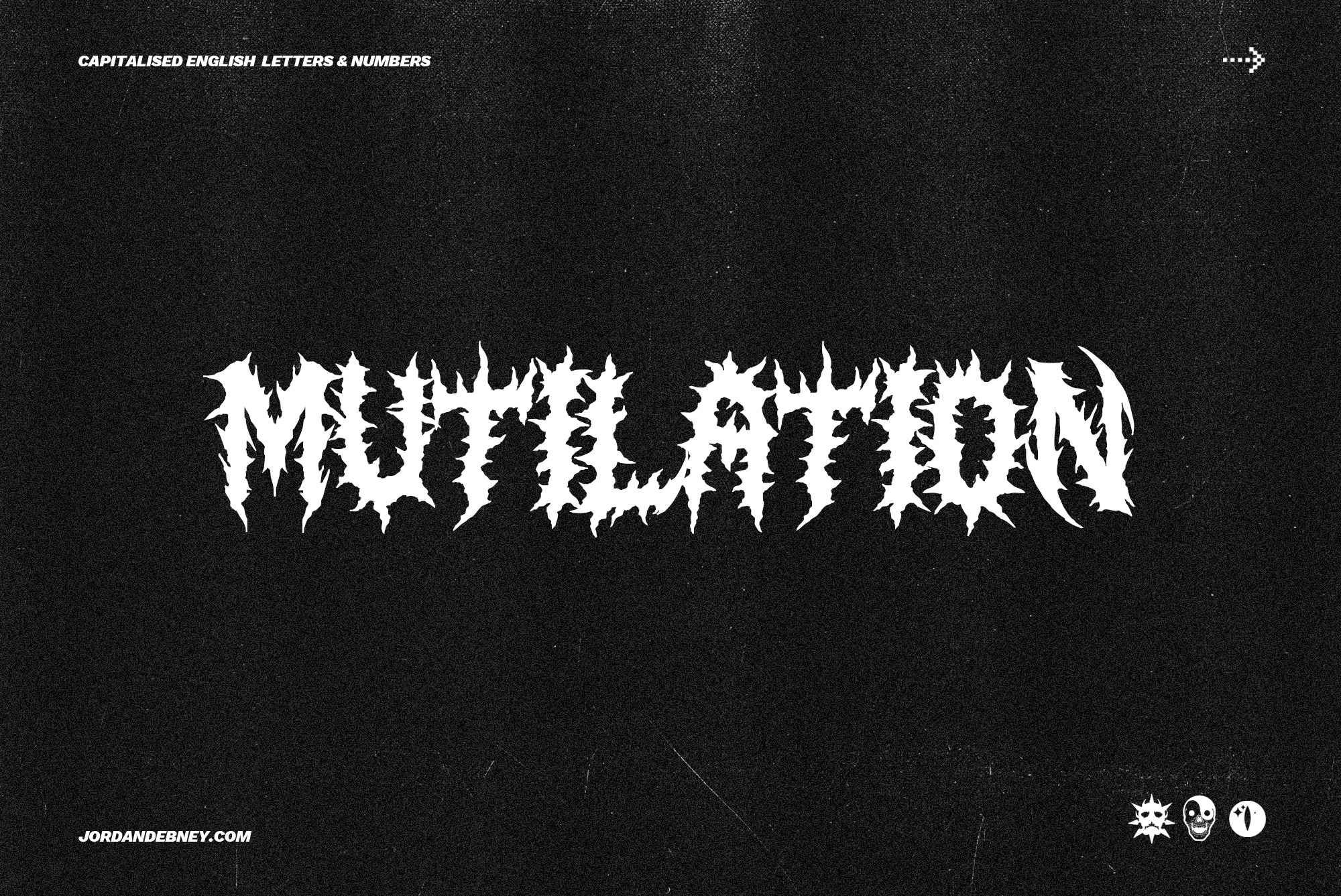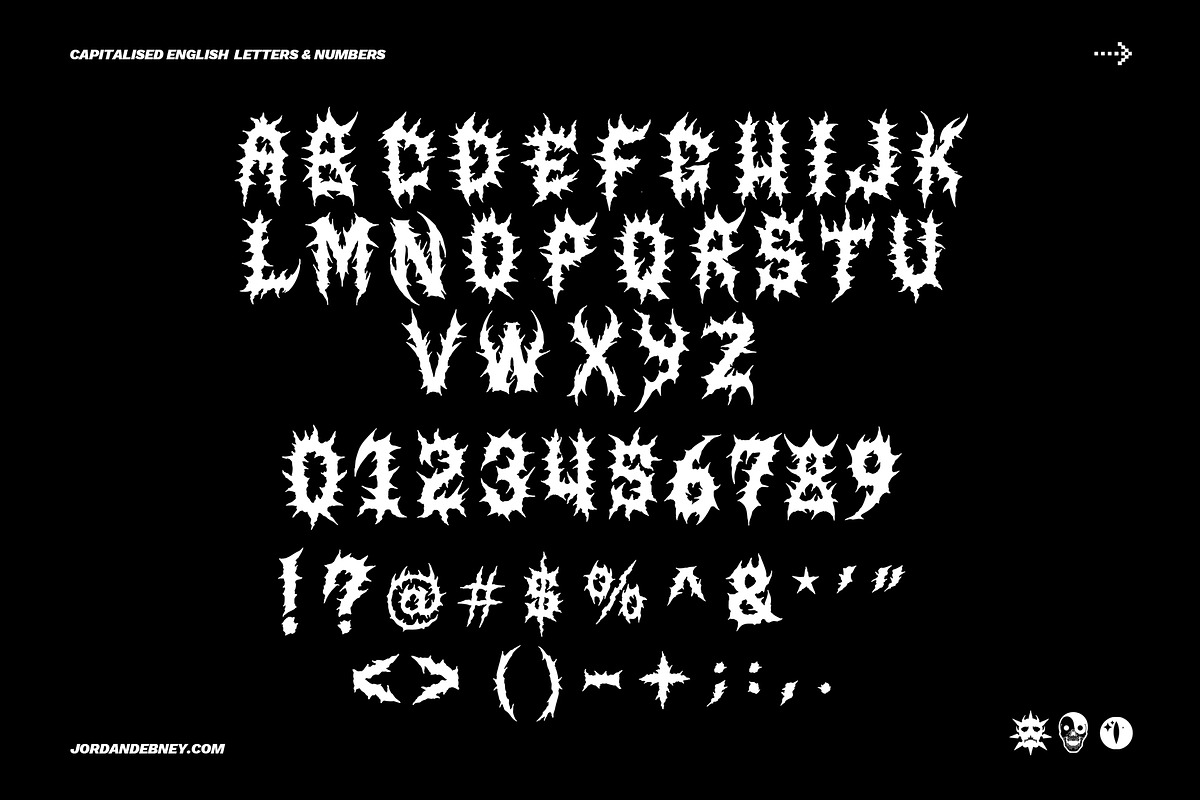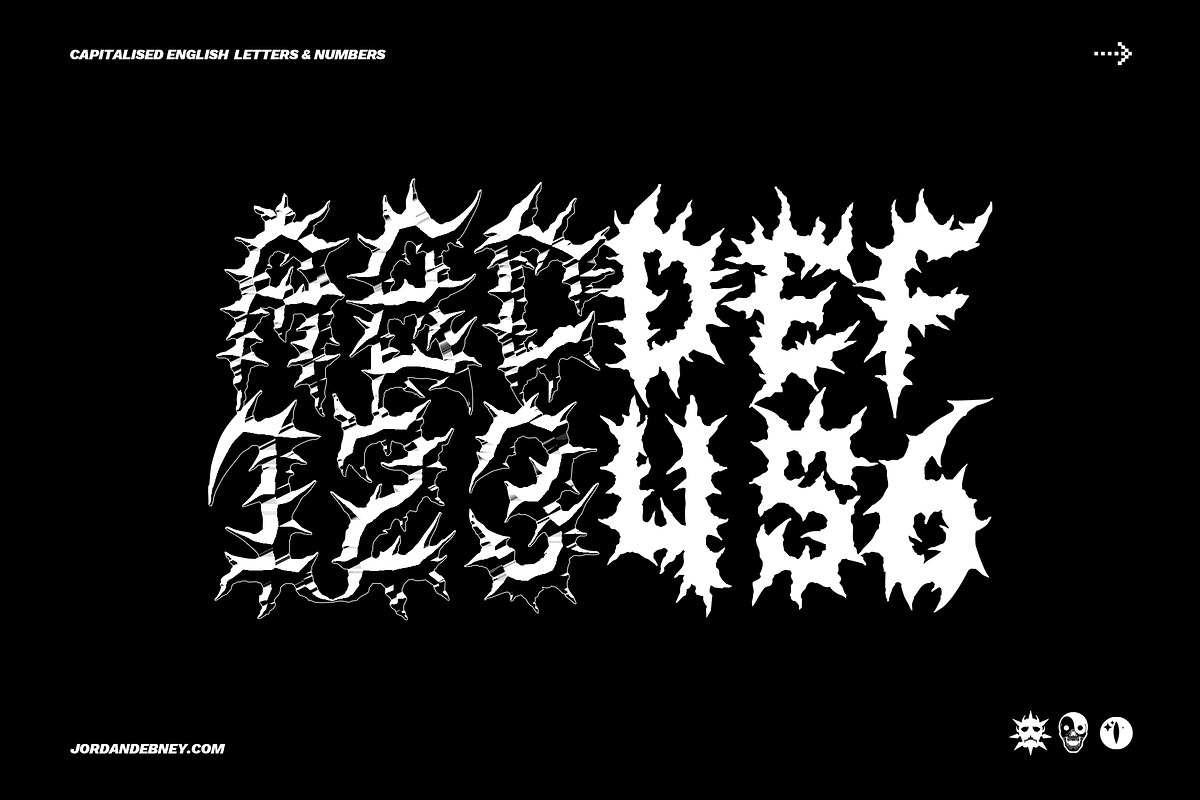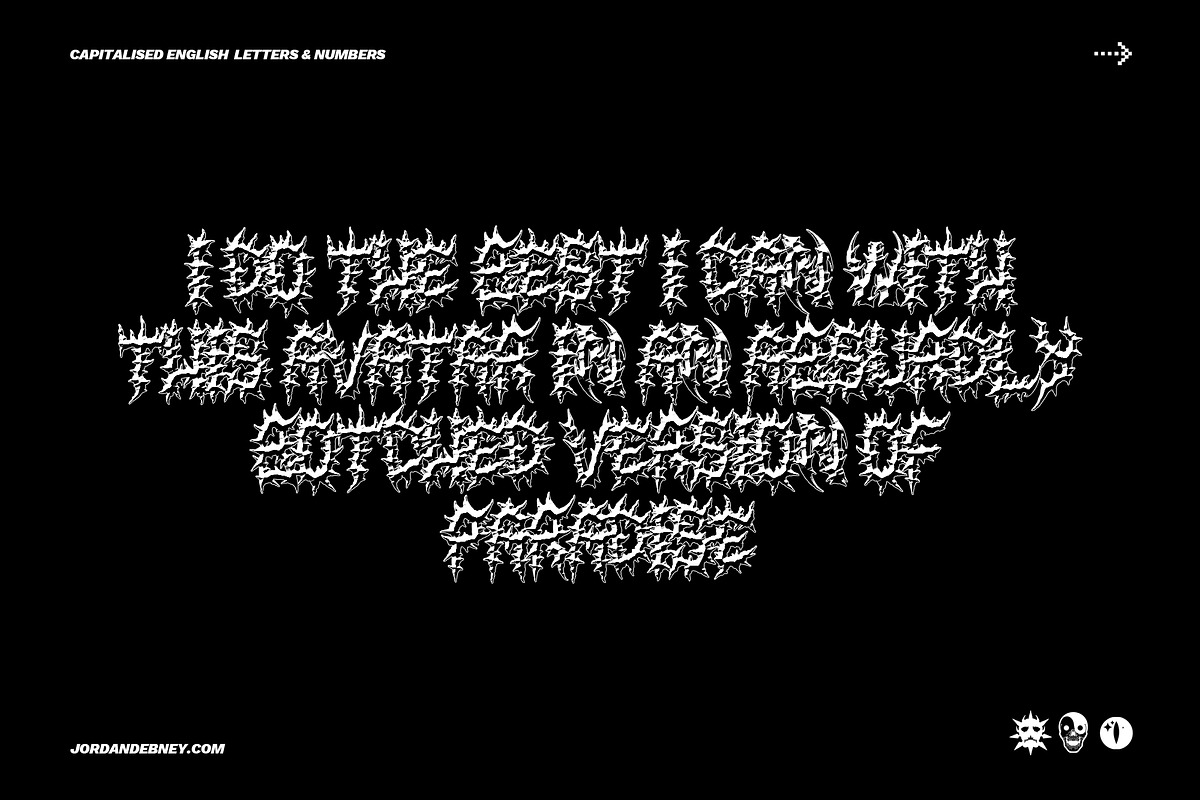
MUTILATION Font
ON THE WAR PATH ‘MUTILATION’ IS A VENGEFUL HEADLINE TYPEFACE OUT FOR BLOOD AND BONE. REFLECTIVE OF THE METAL GENRE IN IT'S CURRENT DAY, BORDER-LINE READABILITY AND EDGES THAT'LL SAW RIGHT THROUGH YOUR TEETH.
◆ HAND-DRAWN GLYPHS ◆ CAPITALISED ENGLISH LETTERS AND NUMBERS ◆ COMPLIMENTARY CHROME READY-TO-TYPE PRESET ◆ NO SIGN-UP NEEDED TO PURCHASE.